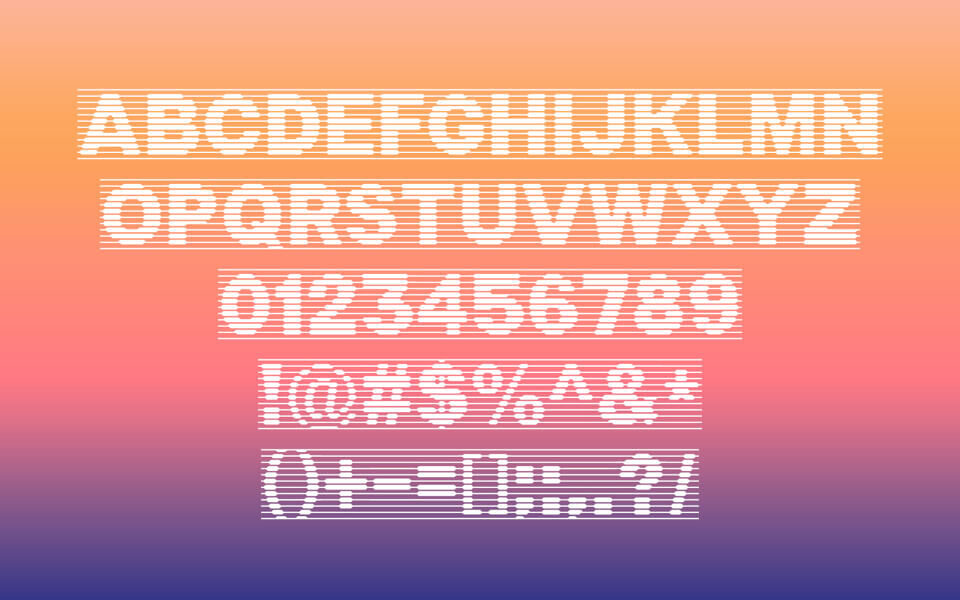
Team Font
Team Font is a bold display typeface with a unique striped effect. Its all-caps, blocky letters are built from parallel horizontal lines, creating a distinct retro-tech and athletic look. This powerful stencil-style font is perfect for eye-catching headlines, logos, posters, and any design needing a strong vintage or 80s vibe.
Designed by: Vasily Shishkin